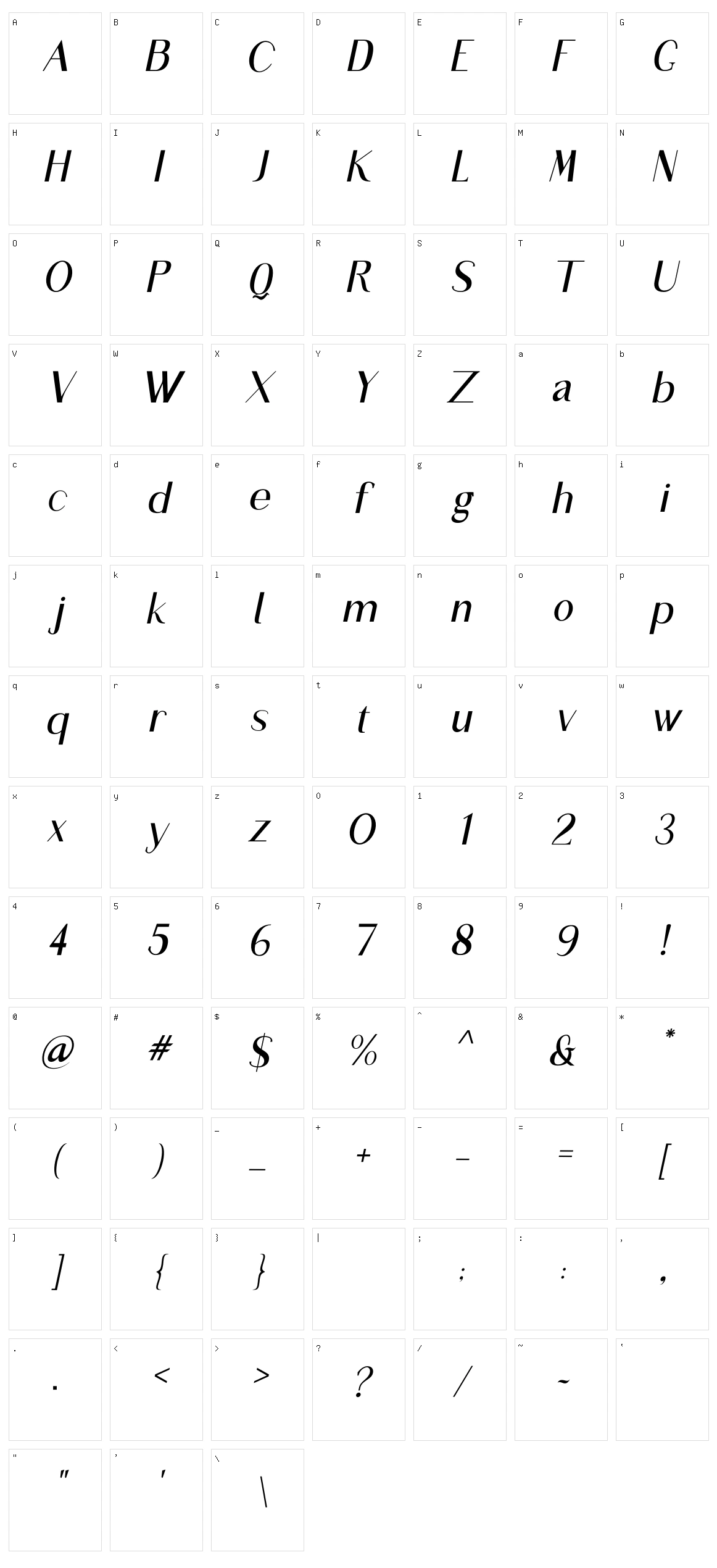
The free font Reynor is carefully designed by Monolab, showcasing a thoughtful balance of creativity and usability and falls under the Serif font style. When you download the ZIP file, it contains only 133.08 KB of font files, making it lightweight and quick to download. Please review the license details below to understand permitted usage and distribution rights. If license information is not available, we recommend using this font for personal projects only or contacting the author directly for commercial usage permissions.